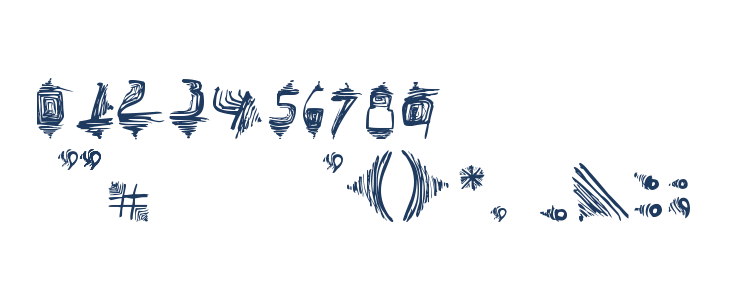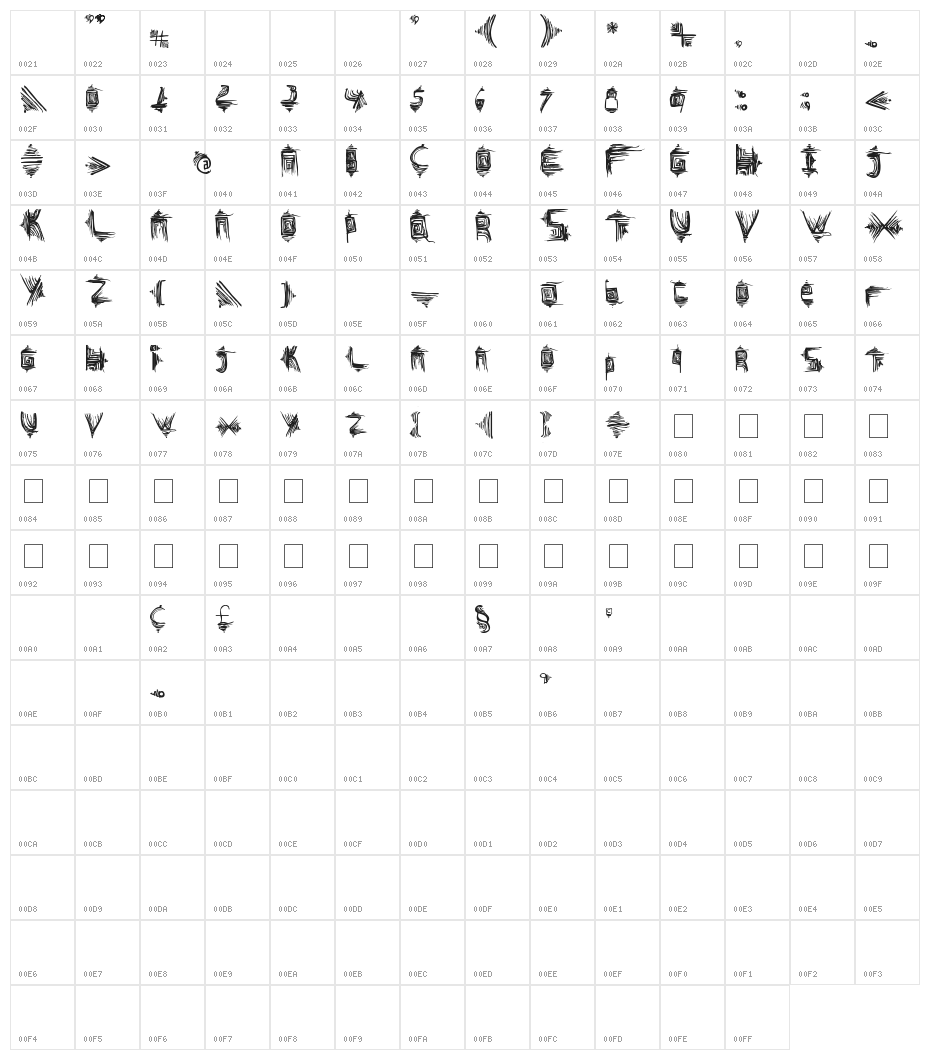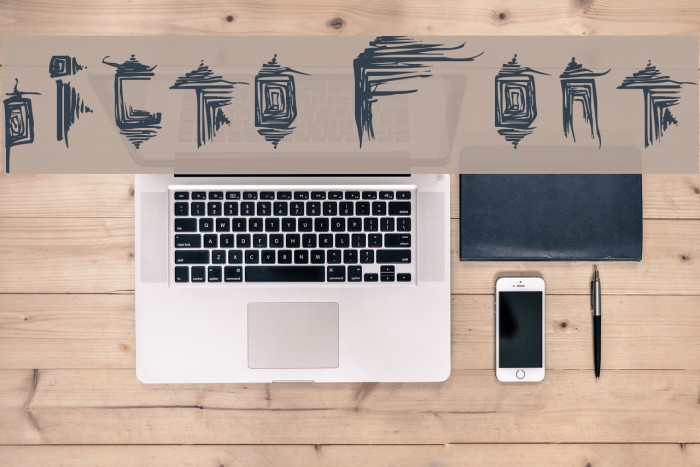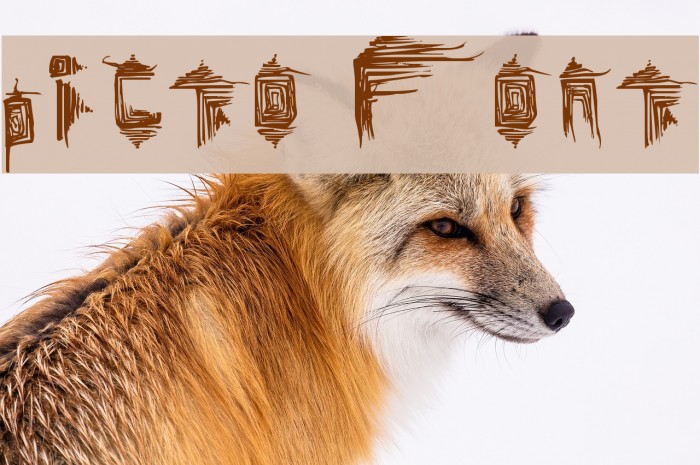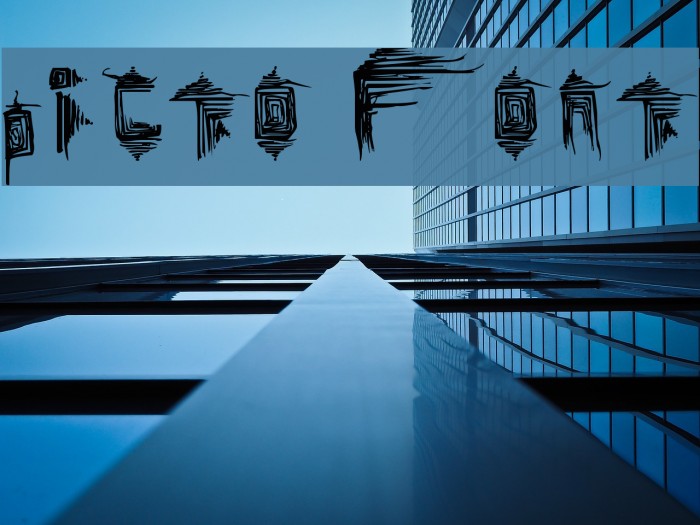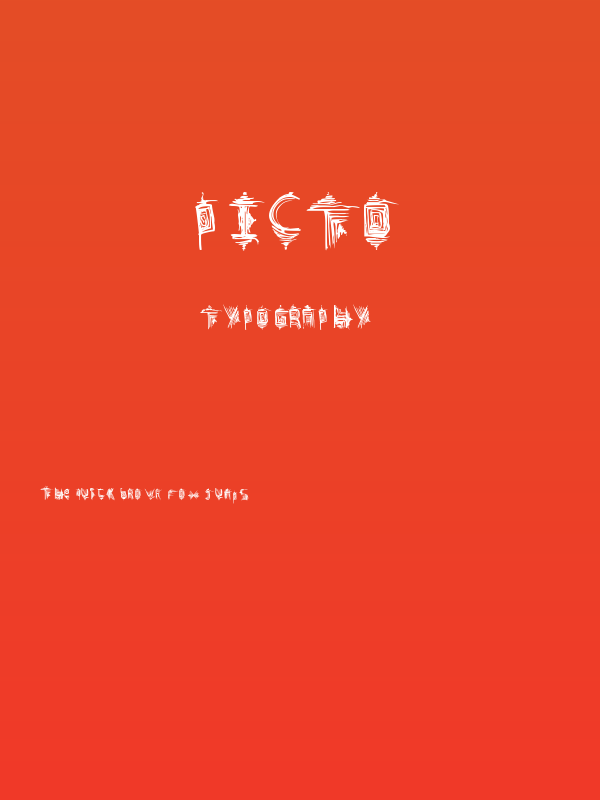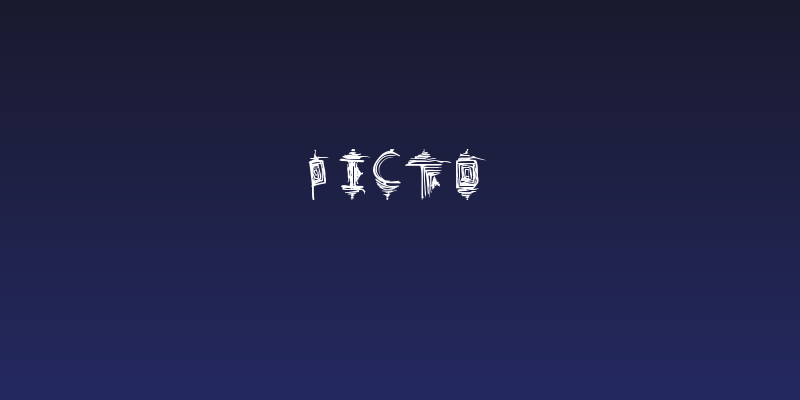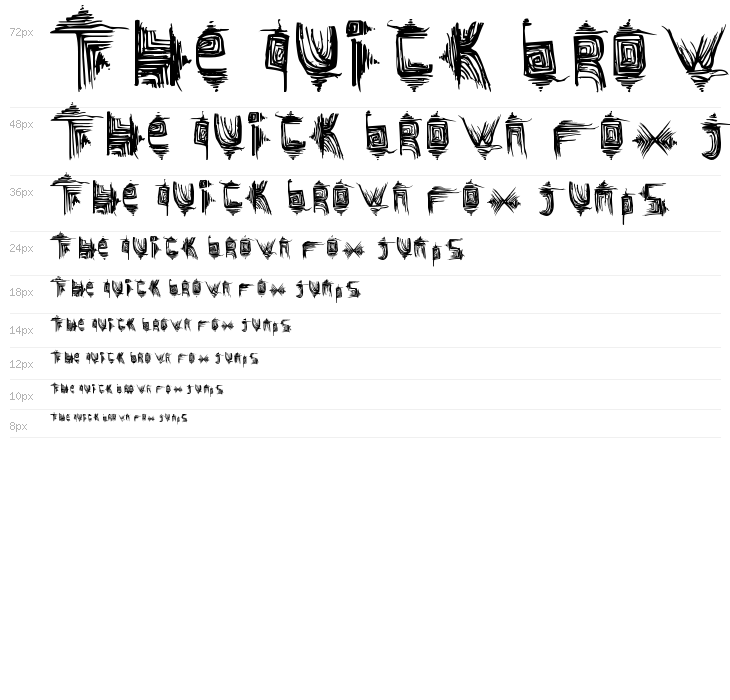
picto Font
picto Description
This font features a highly decorative and abstract style, characterized by its intricate and chaotic line work. Each letter and number appears to be constructed from a series of overlapping, jagged strokes, giving it a dynamic and edgy appearance. The font has a hand-drawn quality, with each character appearing unique and full of movement. The overall effect is one of energy and unpredictability, making it stand out as a bold statement piece. The characters are tightly spaced, enhancing the compact and intense nature of the design. This font is not suited for readability in body text but excels in creating a striking visual impact.